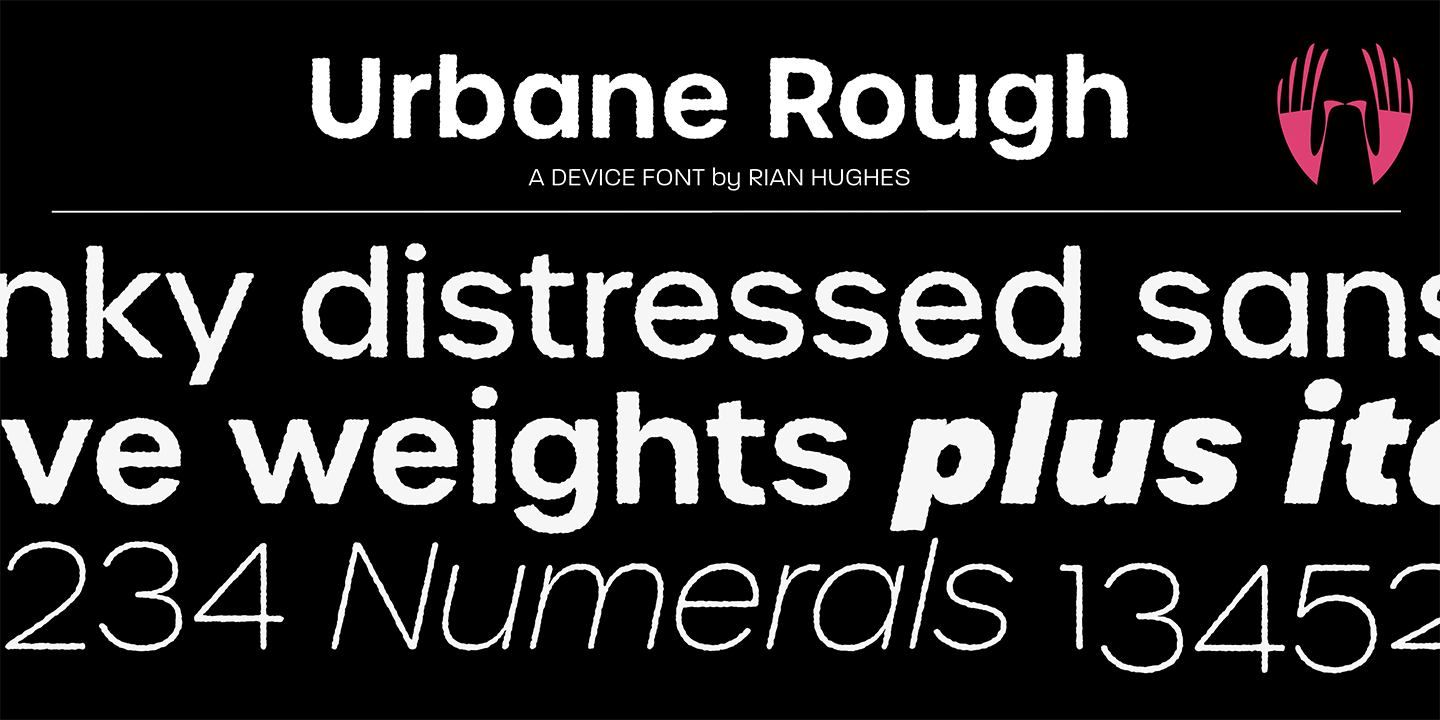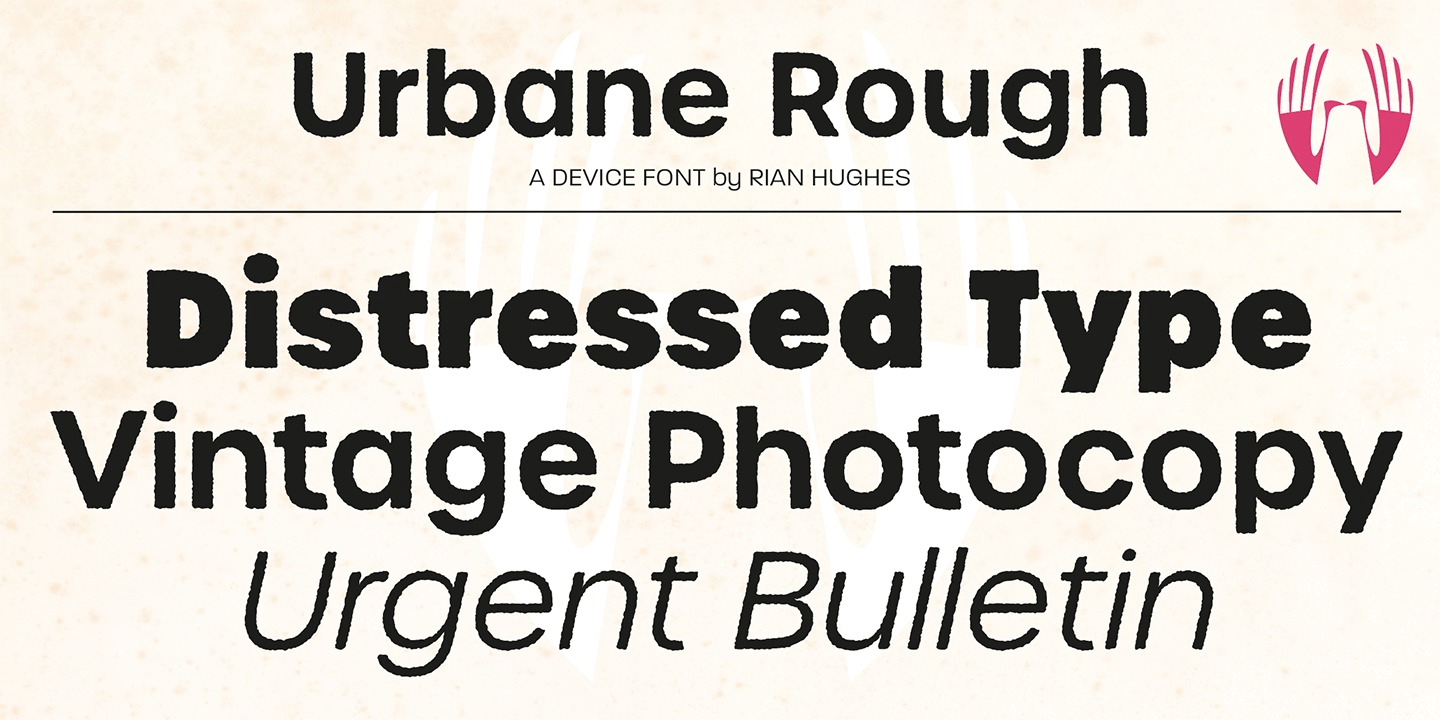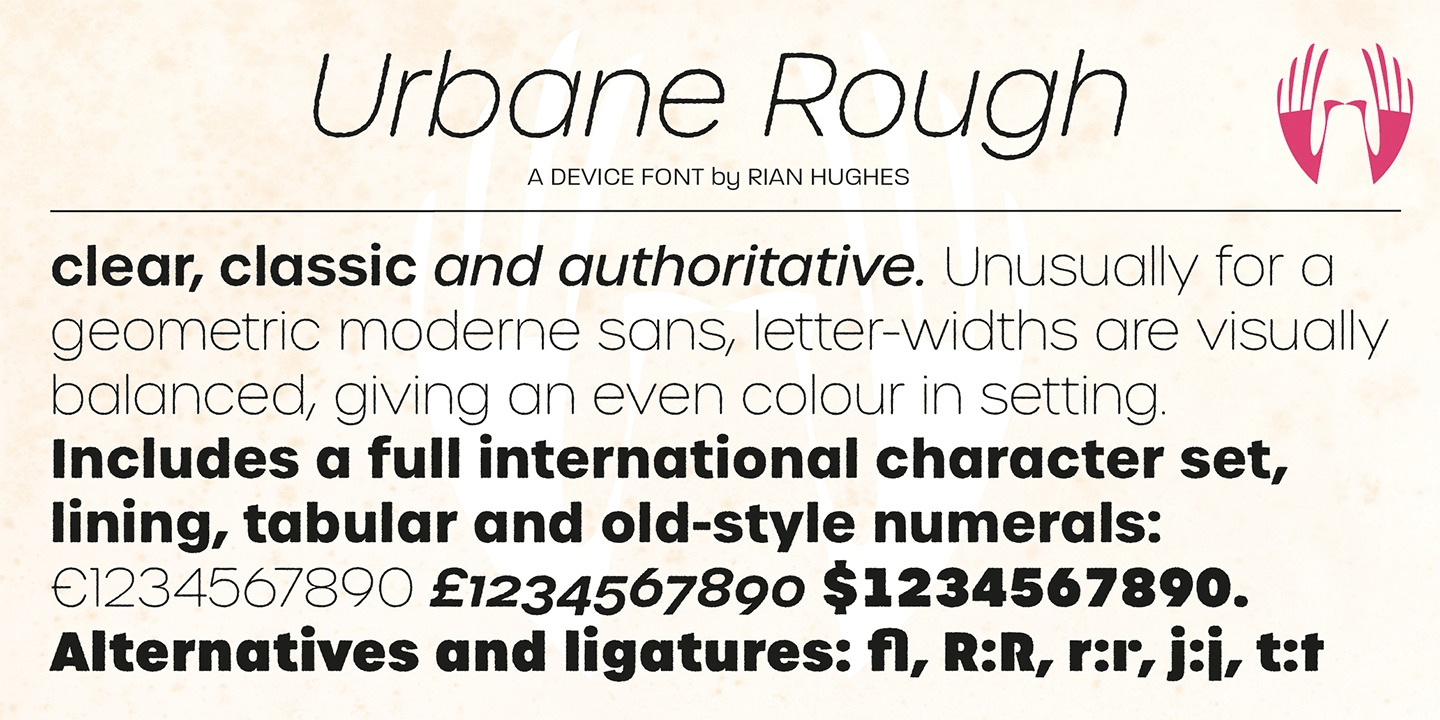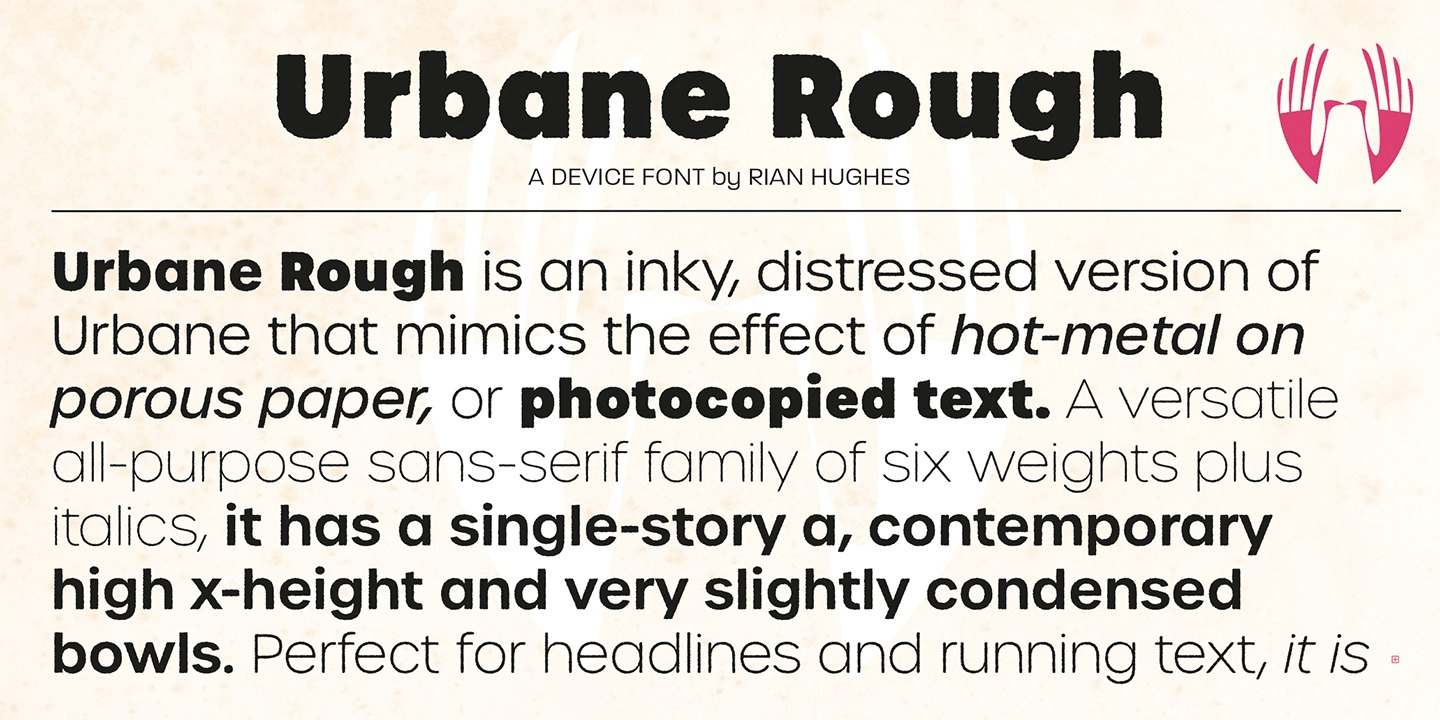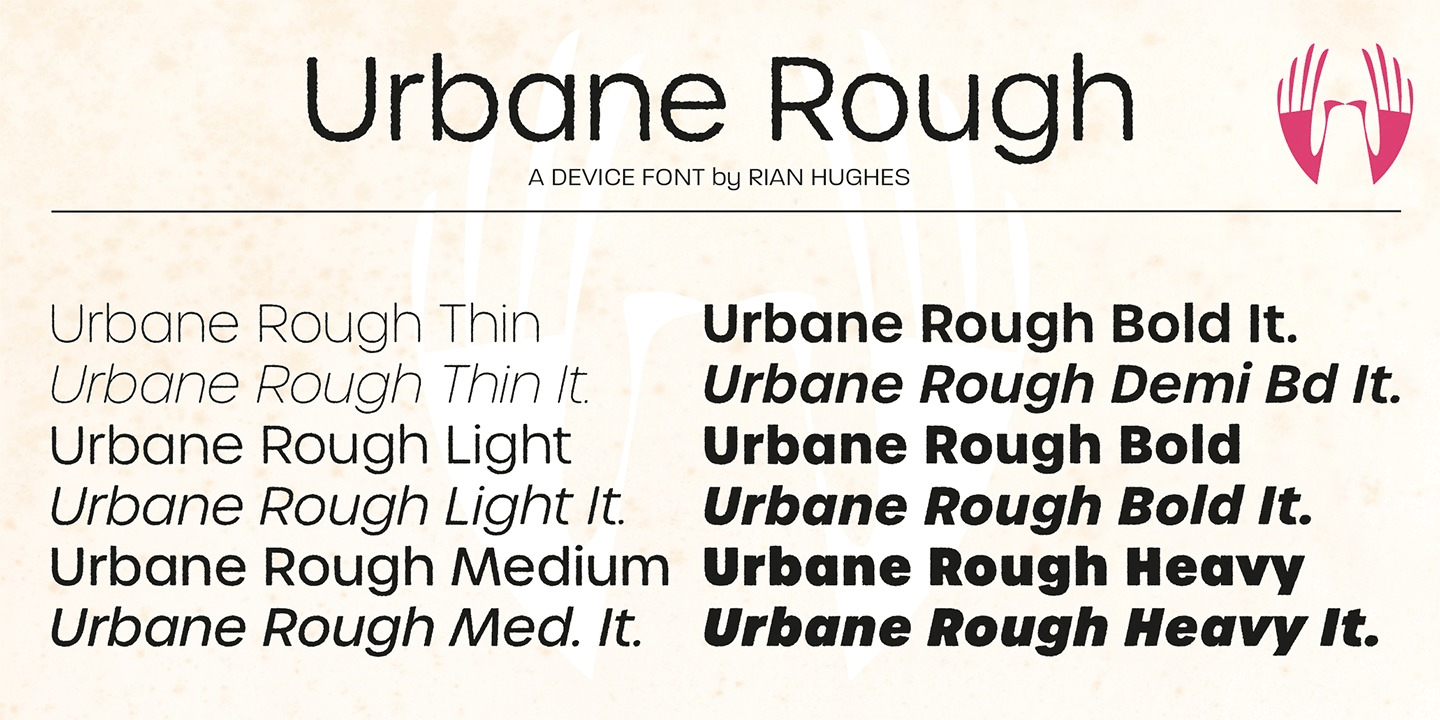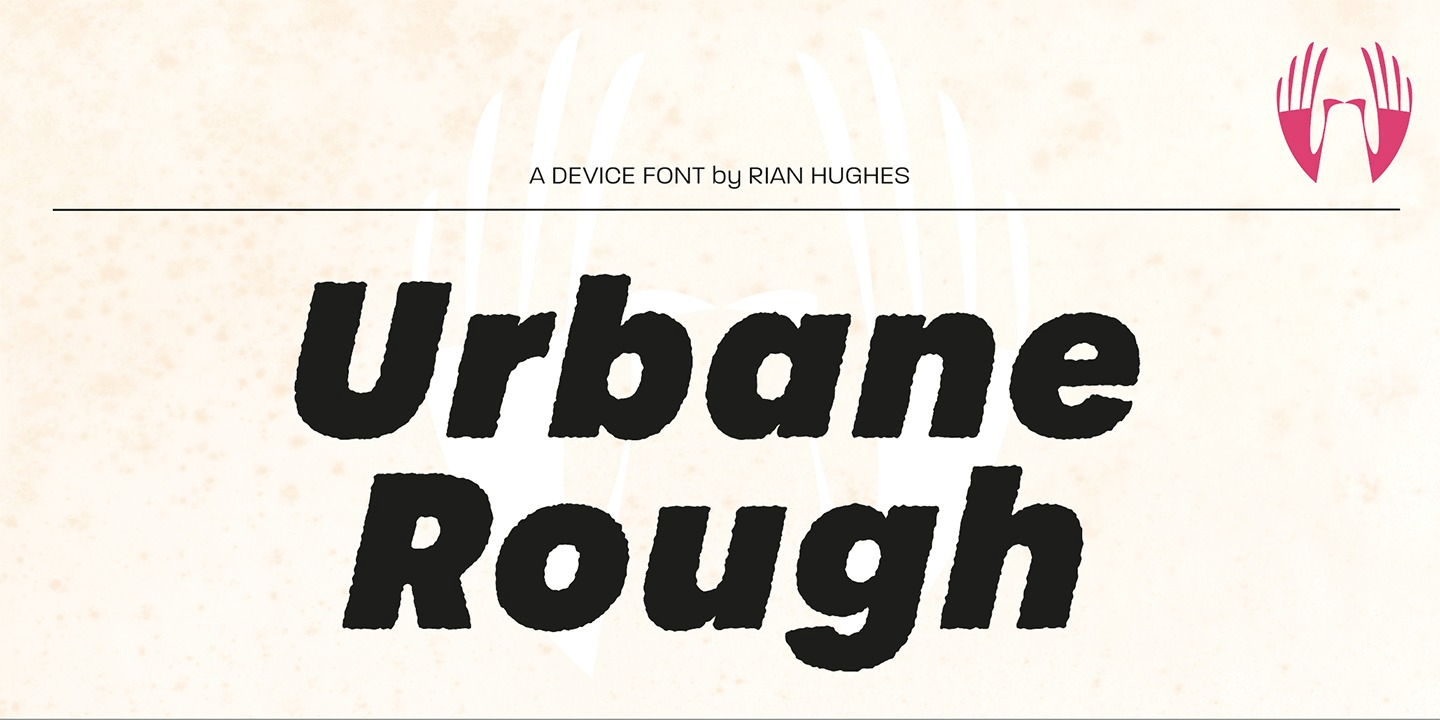
Urbane Rough
Urbane Rough is a distressed version of Urbane, giving it an urgency and immediacy reminiscent of photocopied flyers or inky printing.
A versatile all-purpose sans-serif family of six weights plus italics, it explores the same idea-space as early geometric modernist sans such as Futura, Erbar, Spartan and Elegant Sans, with a single-story a, a contemporary high x-height and very slightly condensed bowls.
Perfect for headlines and running text, it is clear, classic and authoritative. Unusually for a geometric moderne sans, letter-widths are optically balanced, giving an even colour in setting. Includes a full international character set, lining, tabular and old-style numerals.